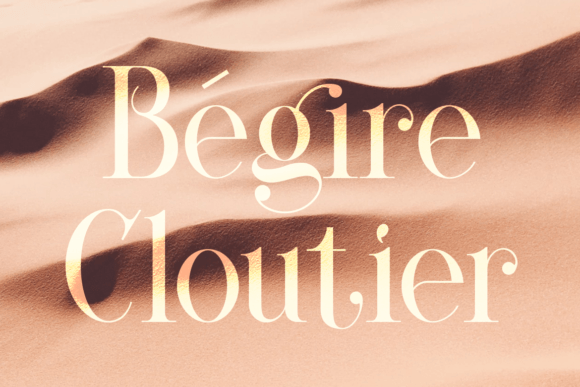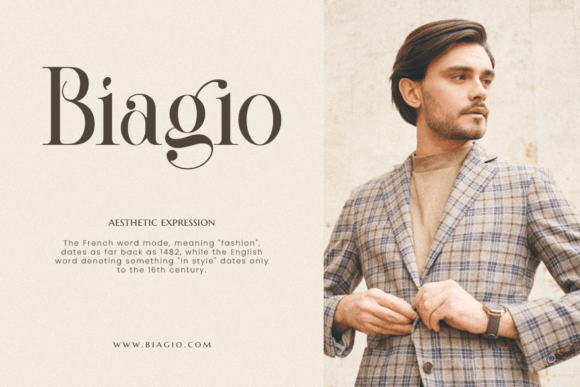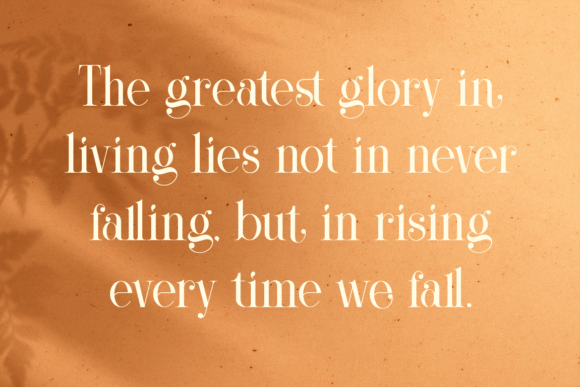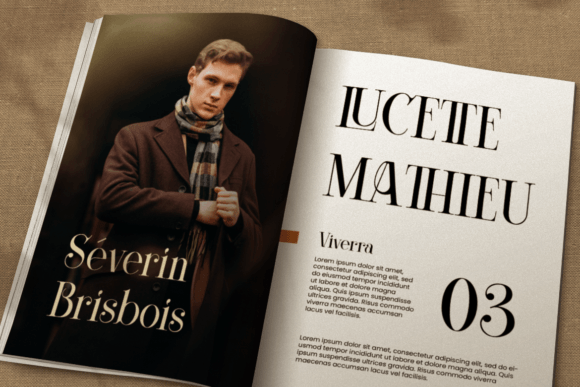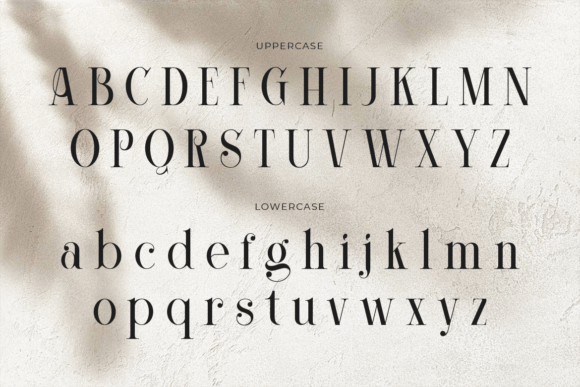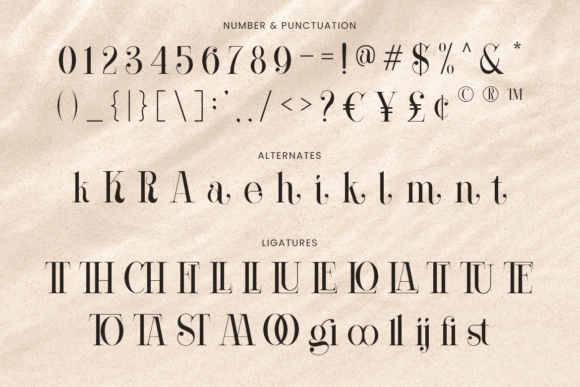
Introducing Corleone Font: The Epitome of Elegance and Sophistication
In the realm of typography, few fonts have managed to capture the essence of refinement and grace as effectively as Corleone Font. This exquisite typeface is designed to infuse every word with a sense of timeless charm, making it an ideal choice for a wide array of design projects. Whether you’re a designer, crafter, or simply someone with a keen eye for detail, Corleone Font is sure to leave a lasting impression.
The Characteristics of Corleone Font
Corleone Font boasts a classy and elegant appearance that speaks softly yet powerfully. Its refined, graceful character makes it perfect for projects that demand a touch of sophistication. This font is meticulously crafted to convey a sense of luxury, poise, and refinement, making it an excellent choice for:
- Branding projects
- Logos
- Wedding designs
- Social media posts
- Advertisements
- Product packaging
- Product designs
- Labels
- Photography
- Watermarks
- Invitations
- Stationery
What Sets Corleone Font Apart?
One of the standout features of Corleone Font is its PUA (Private Use Area) encoding. This means that users can access a vast array of glyphs and ligatures with ease, allowing for unparalleled creative flexibility. The PUA encoding ensures that designers can effortlessly incorporate special characters, swashes, and other unique elements into their work, elevating their designs to new heights.
The Benefits of Using Corleone Font
Corleone Font offers a multitude of benefits for designers and crafters. Some of the most significant advantages include:
- Elegance and sophistication: Corleone Font adds a touch of refinement and luxury to any design project.
- Versatility: This font is suitable for a wide range of applications, from branding and advertising to wedding designs and stationery.
- Easy to use: The PUA encoding makes it simple to access and incorporate glyphs and ligatures into your designs.
- Timeless appeal: Corleone Font’s classic charm ensures that your designs will remain stylish and relevant for years to come.
Tips for Using Corleone Font Effectively
To get the most out of Corleone Font, consider the following tips:
- Pair it with complementary fonts: Combine Corleone Font with other fonts that share similar characteristics to create a cohesive look.
- Experiment with glyphs and ligatures: Take advantage of the PUA encoding to add unique touches to your designs.
- Use it sparingly: Corleone Font’s elegance and sophistication can be overwhelming if overused. Balance it with simpler fonts to create visual interest.
Corleone Font is a masterclass in typographic design, offering a refined, graceful character that imbues every word with a sense of timeless charm and class. Its versatility, elegance, and ease of use make it an excellent choice for designers and crafters seeking to elevate their projects. Whether you’re working on a branding campaign, wedding design, or social media post, Corleone Font is sure to leave a lasting impression.
Discover the power of Corleone Font and unlock a world of creative possibilities. With its PUA encoding and extensive range of glyphs and ligatures, this font is poised to become a staple in your design arsenal.